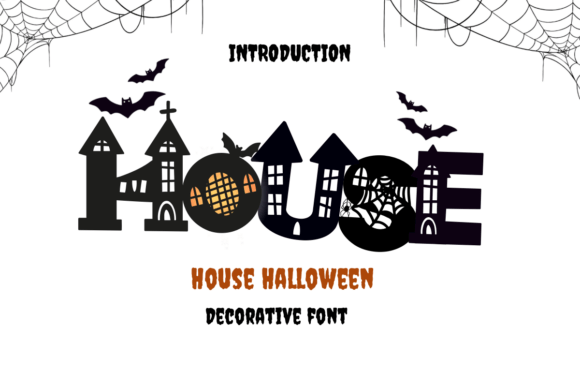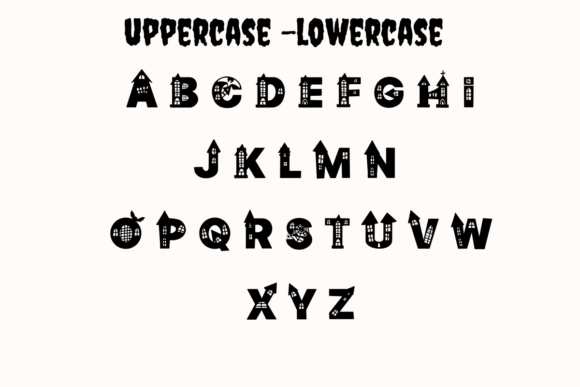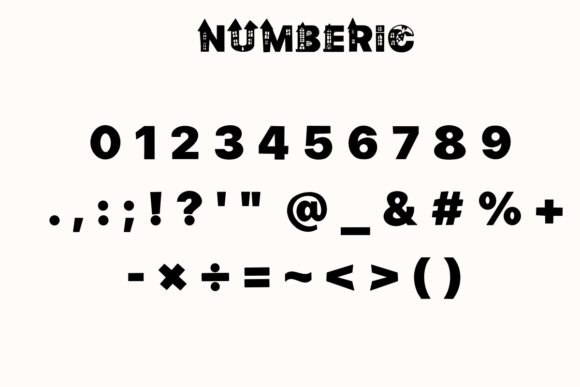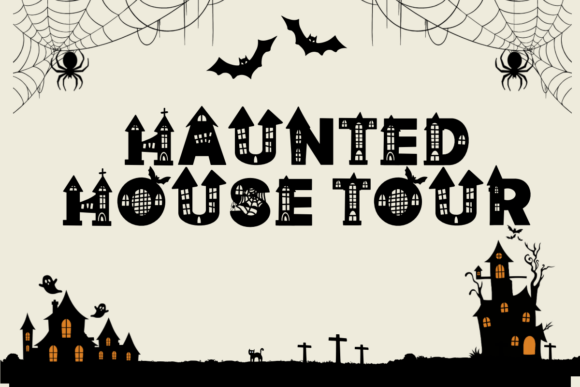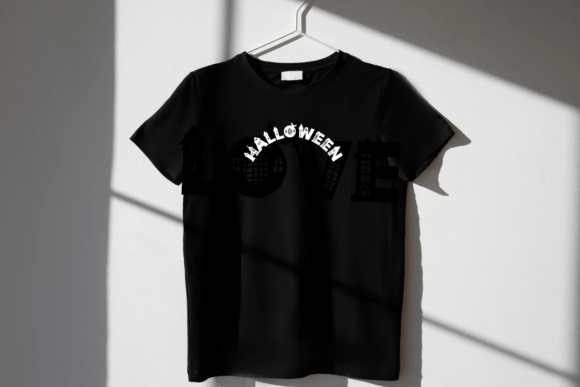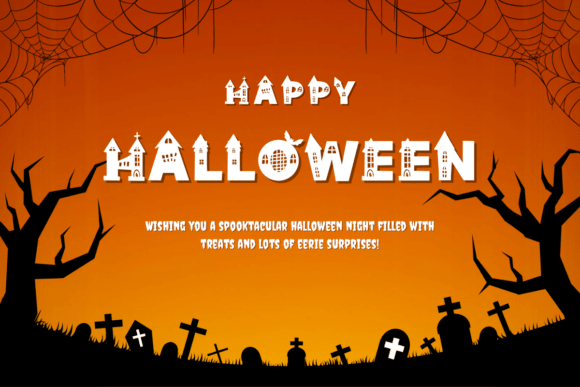
Get Ready for a Spooky Good Time with the House Halloween Font
Do you ever find yourself browsing through design inspiration boards and thinking, “This is the perfect project for Halloween”? For many of us, Halloween is a time to let our creativity run wild and tap into our love for all things spooky and fun. Whether you’re planning a haunted house party, creating invitations for a costume contest, or crafting a themed decoration, the right font can make all the difference.
Enter the House Halloween Font, a playful and eerie display font that brings the spirit of Halloween to life with every letter. Each character is meticulously designed to feature haunted house elements, bats, webs, and pumpkins, making it the perfect addition to any Halloween-themed project. For designers, the House Halloween Font is a valuable tool that can instantly add a touch of Halloween magic to any design.
House Halloween Font Key Features
- Font Style: A spooky, Halloween-themed font with a unique and eerie feel.
- Unique Characteristics: The font features a distinctive, hand-drawn feel with intricate details and ornaments, making it perfect for adding a touch of Halloween magic to designs.
House Halloween Font Review
Overall, I think the House Halloween Font is a solid choice for those looking for a spooky, yet playful font to use in their Halloween-themed designs. ✨ The font’s unique blend of serif and sans-serif elements gives it a charming, eclectic feel that’s sure to grab attention.
- The font’s flexibility is one of its strongest points. It works well in a variety of contexts, from posters and flyers to digital designs and even logos.
- ✨ The font’s whimsical feel is perfect for adding a touch of personality to your designs.
- The font is highly customizable, allowing you to adjust the size, color, and even the individual letter spacing to suit your needs.
However, there are a few limitations to keep in mind. ⚠️ The font may not be suitable for use in more formal or professional contexts, as its playful nature may come across as unprofessional.
Additionally, the font’s unique design can make it difficult to read in certain situations, particularly at small sizes or in low-light conditions.
Overall, I’d recommend the House Halloween Font for designers looking to add a touch of spooky fun to their Halloween-themed designs.
The House Halloween Font is perfect for creating spooky and fun designs for:
- Halloween invitations and party decorations
- Spooky posters and flyers
- Halloween-themed social media graphics